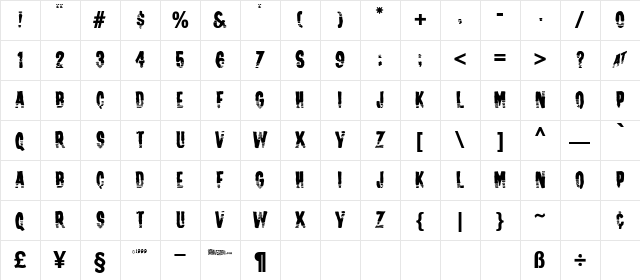
Complete Channel Tuning JL Regular glyph index. Displaying only characters natively supported by Channel Tuning JL Regular font.
Channel Tuning JL is a composed and adaptable typeface that performs quietly and consistently across a wide range of design contexts.